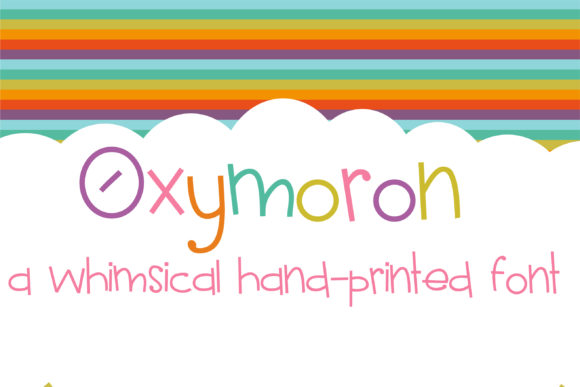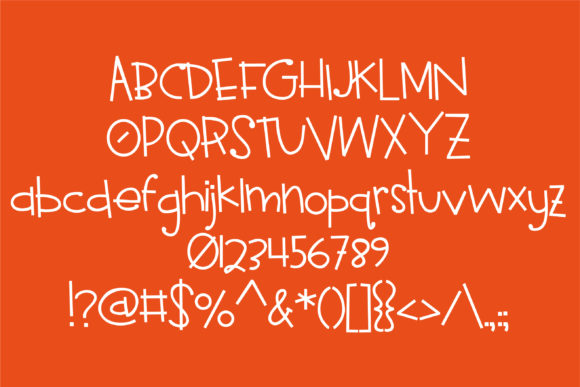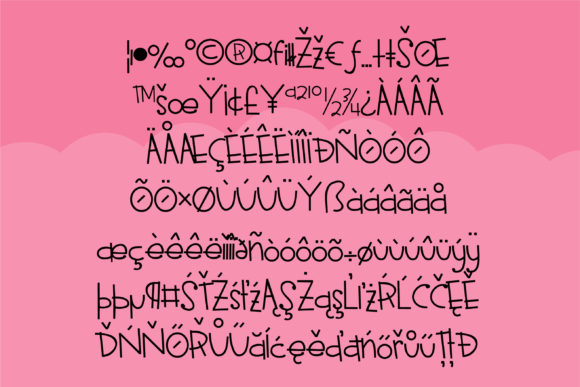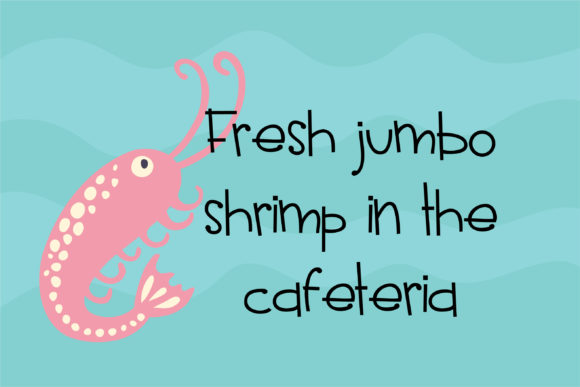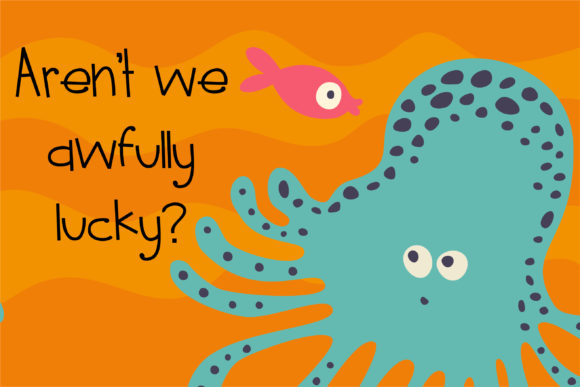
Oxymoron Font
About Oxymoron Font
The Oxymoron is a whimsical, handwritten print with a youthful feel. It has a good readability and is perfect for adding a playful touch to your designs!